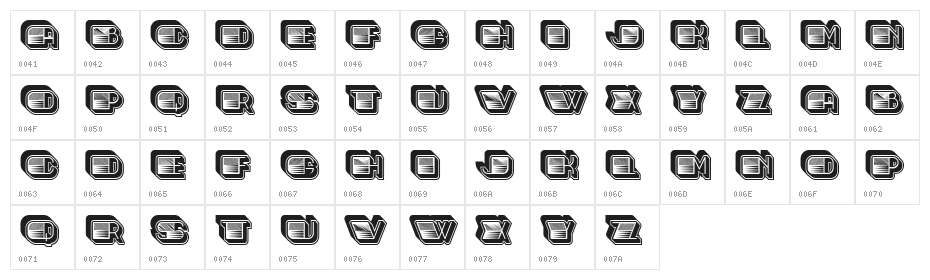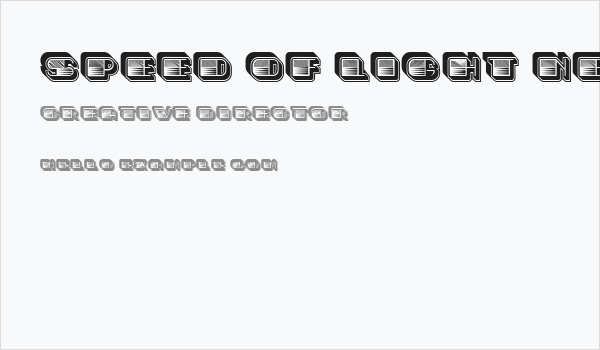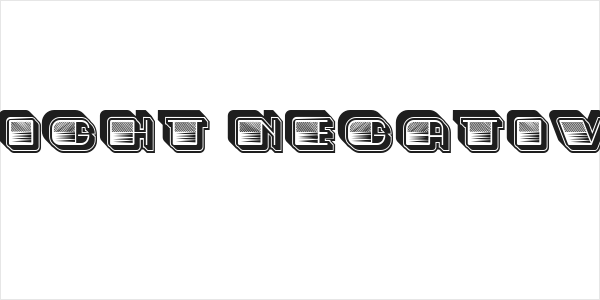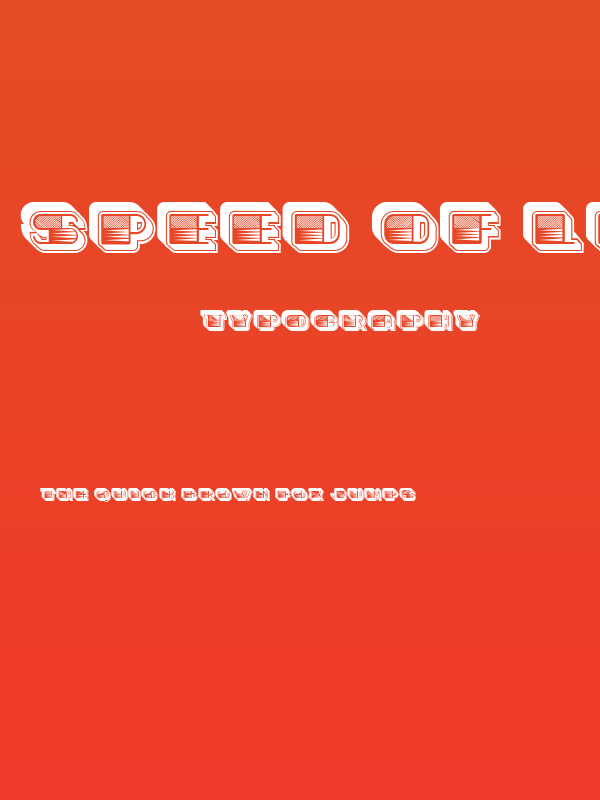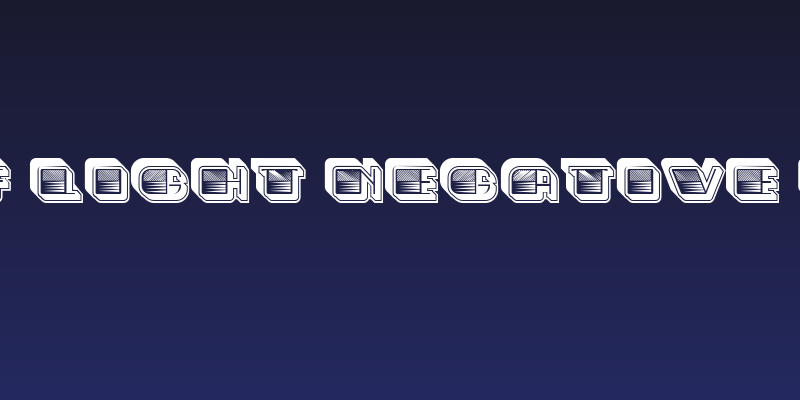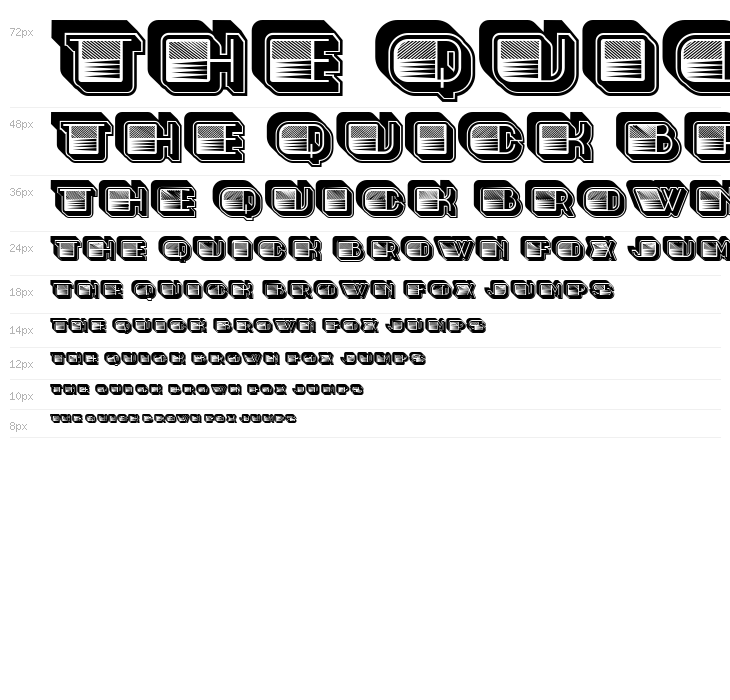
Speed of Light Negative Regular Font
Speed of Light Negative Regular Description
This font features a bold, futuristic design with a distinct three-dimensional effect. Each character is outlined with a thick black border, creating a strong visual impact. The interior of the letters is filled with horizontal lines that add texture and depth, enhancing the illusion of speed and movement. The geometric shapes and sharp angles give it a modern, tech-inspired look, making it ideal for projects that require a dynamic and eye-catching typeface.
| Proposed Projects | Ideal for sci-fi themed posters, video game titles, technology branding, and dynamic advertising campaigns. |